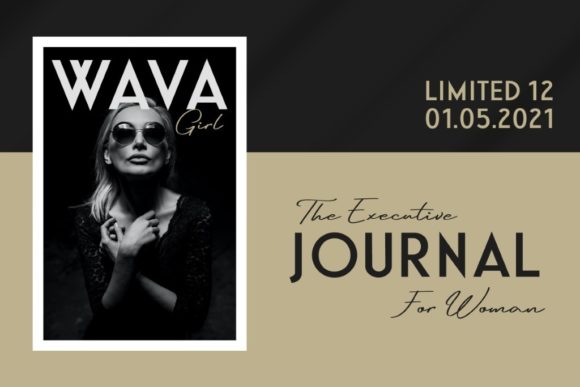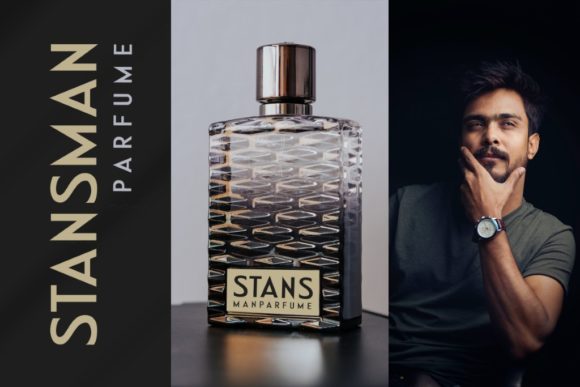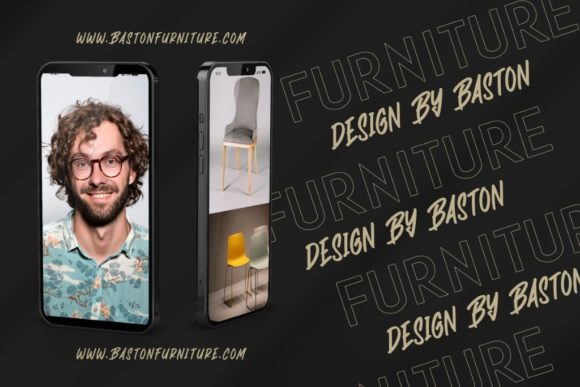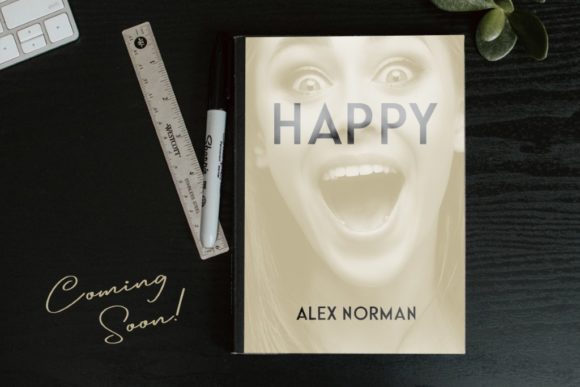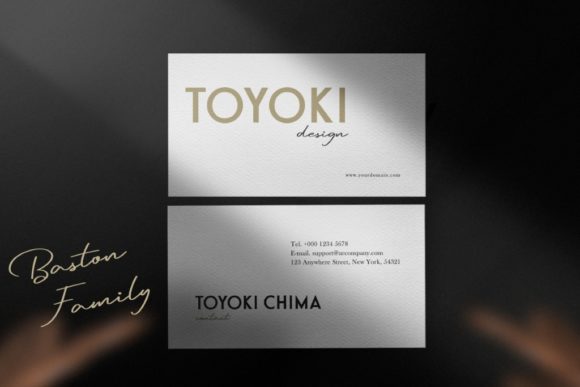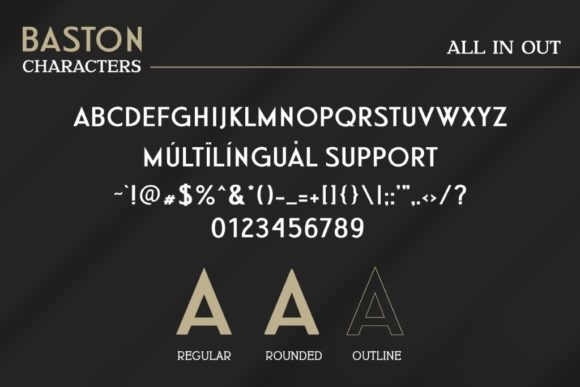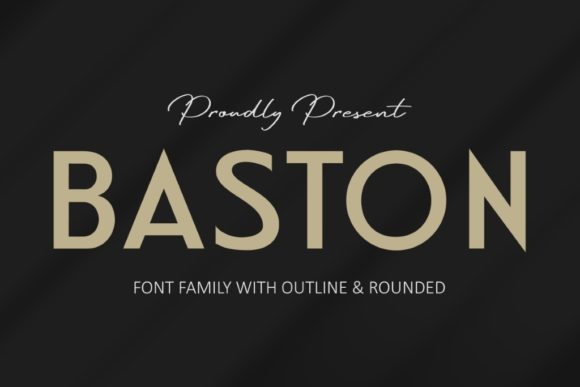
Baston Font: The Ultimate Sans Serif for Creative Projects
Are you tired of using the same old fonts for your creative projects? Look no further than Baston Font, a cool, bold, and simple lettered sans serif font that’s sure to make your designs stand out. With its versatility and wide range of applications, Baston Font is the perfect addition to any designer’s toolkit.
What is Baston Font?
Baston Font is a modern sans serif font that’s designed to be both visually striking and highly legible. Its clean lines, simple shapes, and bold strokes make it perfect for a wide range of creative projects, from logos and branding to posters, flyers, and more. Whether you’re a professional designer or a crafty DIY enthusiast, Baston Font is an excellent choice for anyone looking to add a touch of style and sophistication to their work.
Key Features of Baston Font
- Bold and Simple Design: Baston Font features a bold and simple design that’s perfect for making a statement. Its clean lines and shapes ensure that your text is easy to read, even at small sizes.
- Highly Versatile: Baston Font is incredibly versatile and can be used for a wide range of creative projects, from logos and branding to posters, flyers, and more.
- Easy to Read: Despite its bold design, Baston Font is highly legible and easy to read, making it perfect for both digital and print applications.
Why Choose Baston Font?
So why choose Baston Font for your creative projects? Here are just a few reasons:
- Unique and Eye-Catching: Baston Font is a unique and eye-catching font that’s sure to grab attention. Its bold design and simple shapes make it perfect for making a statement.
- Customizable: Baston Font is highly customizable, allowing you to adjust the font size, color, and style to suit your needs.
Tips and Tricks for Using Baston Font
Here are a few tips and tricks for getting the most out of Baston Font:
- Use it for Headings: Baston Font is perfect for headings and titles. Use it to add a touch of style and sophistication to your designs.
- Experiment with Colors: Don’t be afraid to experiment with different colors and textures. Baston Font looks great in a wide range of colors and styles.
- Pair it with Other Fonts: Baston Font pairs well with a wide range of other fonts. Try pairing it with a script font or a serif font for a unique look.
In conclusion, Baston Font is a cool, bold, and simple lettered sans serif font that’s perfect for a wide range of creative projects. Its versatility, ease of use, and highly legible design make it an excellent choice for designers and crafters. Whether you’re looking to add a touch of style and sophistication to your designs or simply want to try something new, Baston Font is definitely worth checking out.